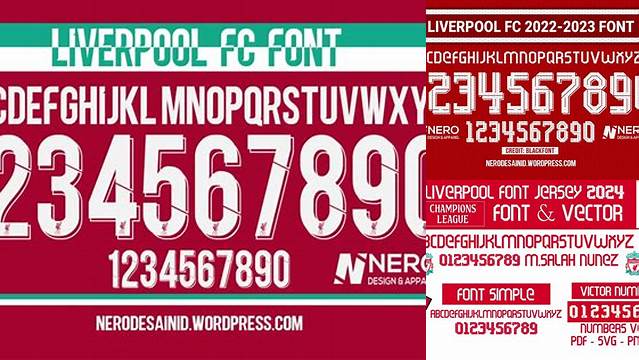
Hey guys! Are you massive Liverpool fans like me? Want to show your support in every way possible? Well, you've come to the right place! Today, we're diving deep into the Liverpool font 2026/21, and how you can get your hands on a free download. This isn't just any font; it's a symbol of your unwavering loyalty to the Reds. So, let's get started and explore everything you need to know about this iconic font and where to find it.
Liverpool FC Font: An Overview
The Liverpool FC font isn't just a typeface; it's a visual representation of the club's identity, history, and spirit. Imagine seeing that font on player jerseys, official merchandise, and all club-related communications. It's instantly recognizable and evokes a sense of pride and belonging among supporters. This font helps create a cohesive and professional brand image for the club, making it easily identifiable across various platforms. The impact of the Liverpool FC font goes beyond mere aesthetics; it fosters a sense of unity and tradition among fans, connecting them through a shared visual language that resonates deeply with their passion for the club.
The History of Liverpool Fonts
The story of Liverpool fonts is a fascinating journey through the club's visual branding evolution. Over the years, different fonts have been used, each reflecting the era and style of the time. Tracing the historical context of these fonts provides insight into how the club's identity has been shaped and presented to the world. Each font choice tells a story, from the classic, traditional styles to the more modern and dynamic designs. Exploring this history of Liverpool fonts not only satisfies the curiosity of fans but also offers a glimpse into the broader trends in sports branding and visual communication, showing how even a font can be a powerful symbol of a club's heritage and future aspirations.
Why is the 2026/21 Font Special?
The 2026/21 font holds a special place in the hearts of Liverpool fans due to its unique design elements and its association with specific seasons and achievements. This font is more than just a set of letters and numbers; it's a symbol of the team's performance and memorable moments during those years. Understanding the unique design features helps fans appreciate the thought and creativity that went into crafting this font. It's also important to note the significance of the 2026/21 season in terms of team performance, memorable matches, and overall achievements. This font isn’t just about aesthetics; it's a badge of honor, a reminder of the victories and shared experiences that bind the Liverpool community together, making it a cherished part of the club's visual identity.
Using the Font in Design Projects
Now for the fun part: putting the Liverpool font to work! Whether you're creating social media graphics, designing a banner for your fan club, or just want to add some Liverpool flair to your documents, this font is a fantastic tool. Let's brainstorm some creative project ideas where you can use the font, from personalized merchandise to digital art. But before you dive in, consider some best practices for font usage to ensure your designs look professional and polished. Things like readability, spacing, and contrast are key to making your message shine. With the right approach, you can create stunning visuals that truly capture the spirit of Liverpool FC.
Font Alternatives for Liverpool FC
Sometimes, you might be looking for a similar vibe but a slightly different look, or you might encounter licensing restrictions that prevent you from using the official Liverpool font. That's where font alternatives come in handy! Exploring fonts similar in style to the Liverpool font can open up a world of possibilities for your projects. These alternatives might share characteristics like boldness, modernity, or a certain geometric flair. We'll also discuss when to consider using alternatives – for example, in commercial projects where you need a font with a more permissive license. Having a few backup options in your font arsenal is always a smart move, giving you the flexibility to create awesome designs no matter the situation.
The Psychology of Fonts and Team Branding
Did you know that fonts can actually influence how people feel about a brand? It's true! The psychology behind font choices plays a crucial role in shaping brand perception. A strong, bold font like the Liverpool font can convey strength, confidence, and tradition – all qualities that resonate with a successful football club. Think about how the font fits into Liverpool's overall brand identity. Does it reflect the club's history, values, and aspirations? The connection between font and brand is often subconscious, but it's a powerful element in creating a cohesive and impactful visual identity. Understanding this psychology can help you appreciate the strategic decisions behind font selection and how it contributes to the club's image.
Frequently Asked Questions about Liverpool Fonts
To wrap things up, let's address some frequently asked questions about Liverpool fonts. This will help to clarify any remaining questions you might have and provide a comprehensive overview of the topic. We’ll cover common questions about font usage, such as licensing, installation, and compatibility. We'll also address questions about the history and design of the Liverpool font, providing insights into its origins and evolution. By answering these FAQs, we hope to provide you with a complete understanding of Liverpool fonts and how to use them effectively. Remember, showing your support for Liverpool is all about passion and creativity!